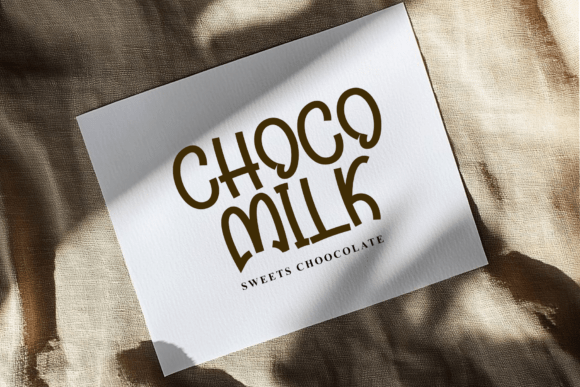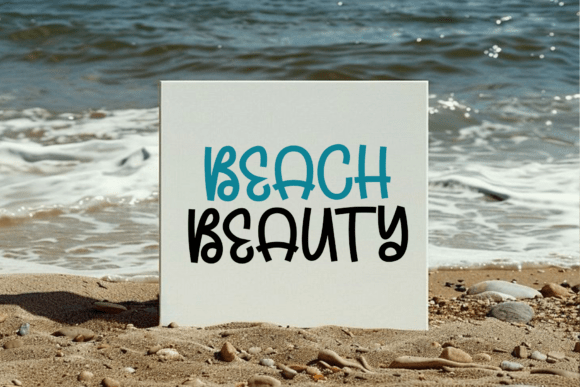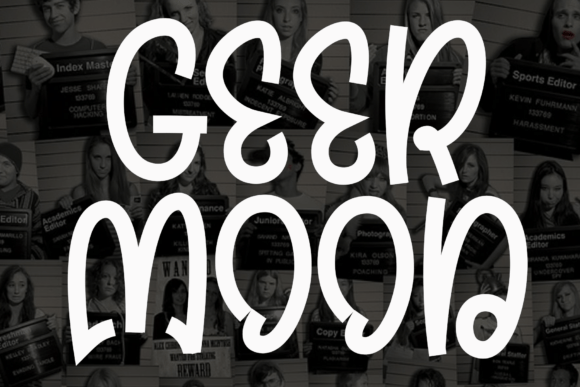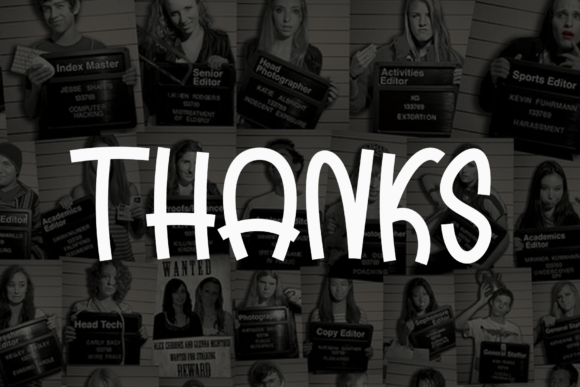
Introducing Funny Woody Font: The Ultimate Choice for Designers and Crafters
Are you tired of using the same old fonts for your designs? Look no further! Funny Woody Font is here to revolutionize your creative projects with its unique and beautiful touch. This lovely and timeless handwritten font is perfect for creating eye-catching logos, branding, and quotes that will leave a lasting impression on your audience.
What Makes Funny Woody Font So Special?
Every letter in Funny Woody Font has been carefully crafted to bring a touch of personality and whimsy to your designs. The font’s unique and beautiful touch will make your design come alive, setting it apart from the rest. Whether you’re a designer, crafter, or DIY enthusiast, Funny Woody Font is the perfect choice for adding a personal touch to your projects.
The Perfect Choice for Designers
As a designer, you know how important it is to have a font that can help you create stunning visuals. Funny Woody Font is designed to help you create eye-catching logos, branding, and quotes that will leave a lasting impression on your clients. Its unique and beautiful touch will add a touch of personality to your designs, making them stand out from the rest.
Here are just a few reasons why Funny Woody Font is the perfect choice for designers:
- Unique and Beautiful Touch: Every letter in Funny Woody Font has been carefully crafted to bring a touch of personality and whimsy to your designs.
- High-Quality Design: Funny Woody Font is designed to provide high-quality results, making it perfect for printing and digital use.
The Perfect Choice for Crafters
As a crafter, you know how important it is to have a font that can help you add a personal touch to your projects. Funny Woody Font is perfect for crafters who want to create beautiful and unique projects that showcase their personality. Whether you’re creating handmade cards, scrapbooking pages, or DIY signs, Funny Woody Font is the perfect choice.
Here are just a few reasons why Funny Woody Font is the perfect choice for crafters:
- Personal Touch: Funny Woody Font adds a personal touch to your projects, making them truly unique and special.
- Endless Possibilities: Funny Woody Font can be used for a wide range of crafting projects, from handmade cards to DIY signs.
Funny Woody Font is a lovely and timeless handwritten font that is perfect for designers and crafters who want to add a personal touch to their projects. With its unique and beautiful touch, Funny Woody Font is sure to make your designs come alive! Whether you’re creating eye-catching logos, branding, and quotes, or adding a personal touch to your crafting projects, Funny Woody Font is the ultimate choice.